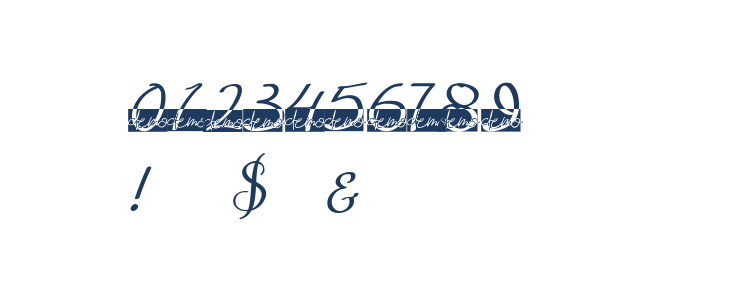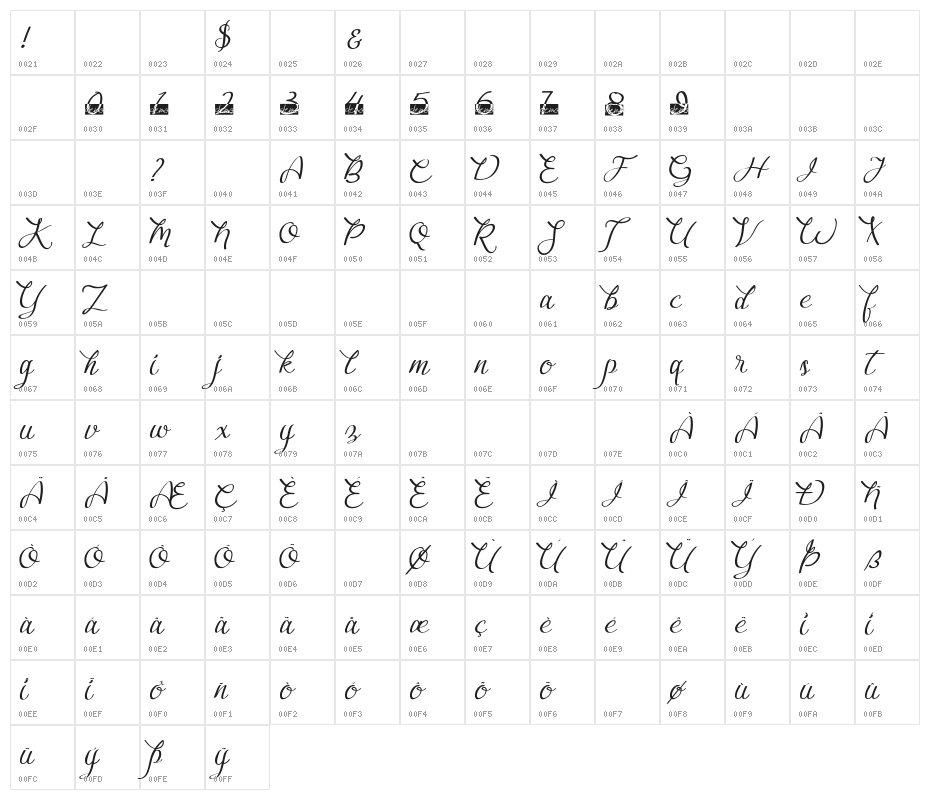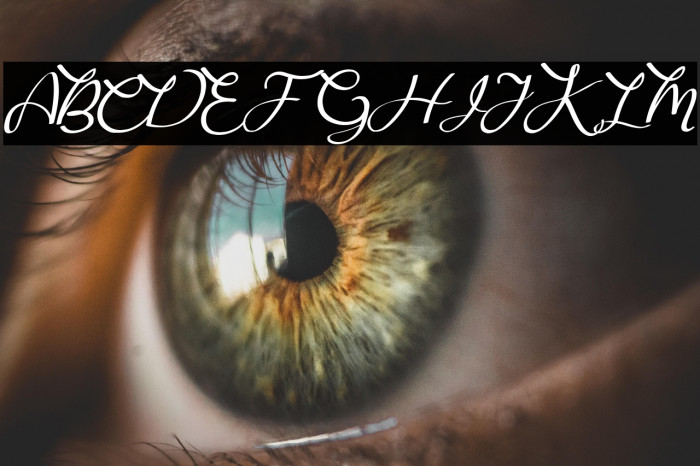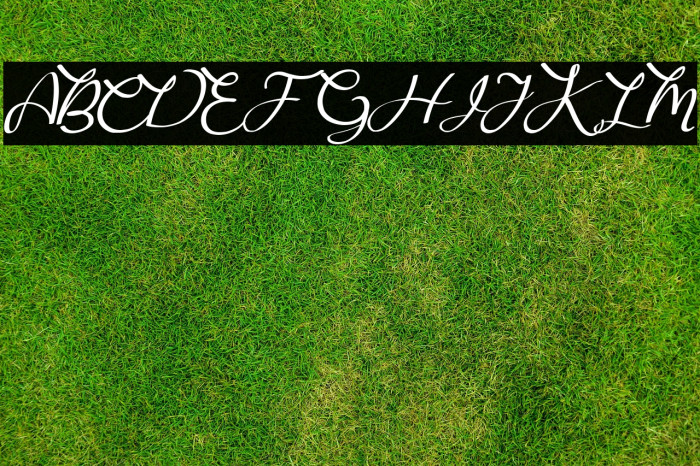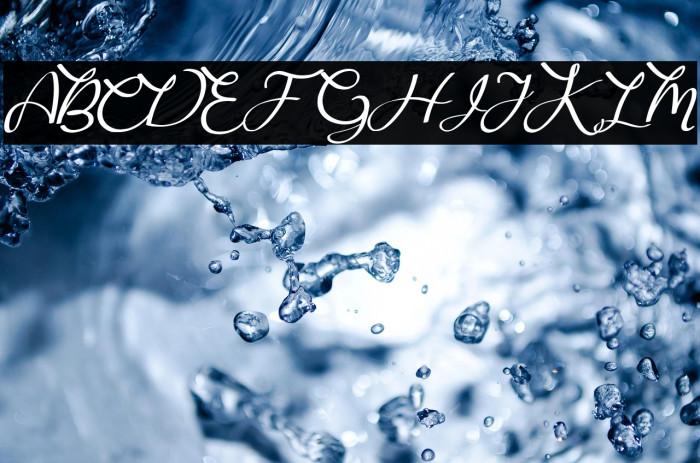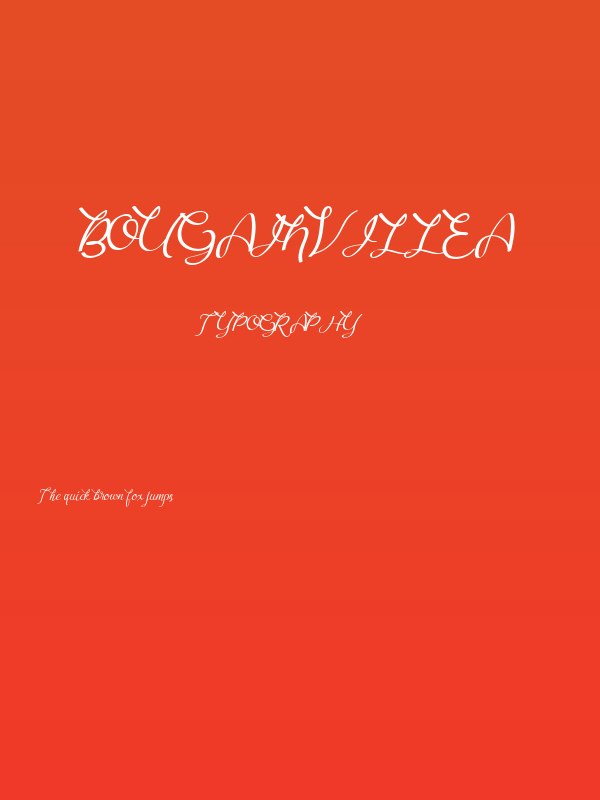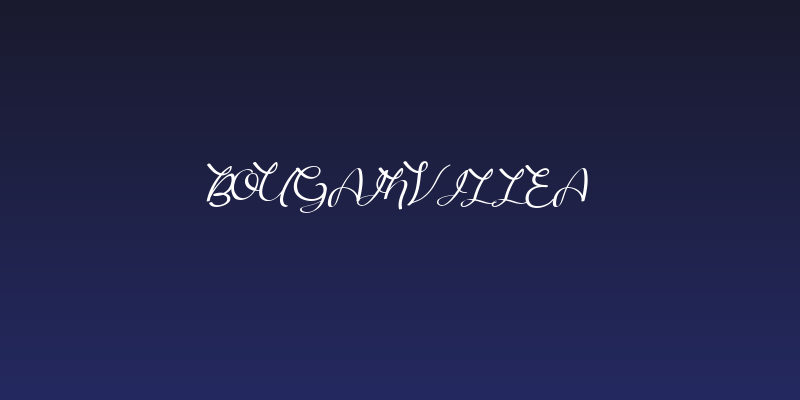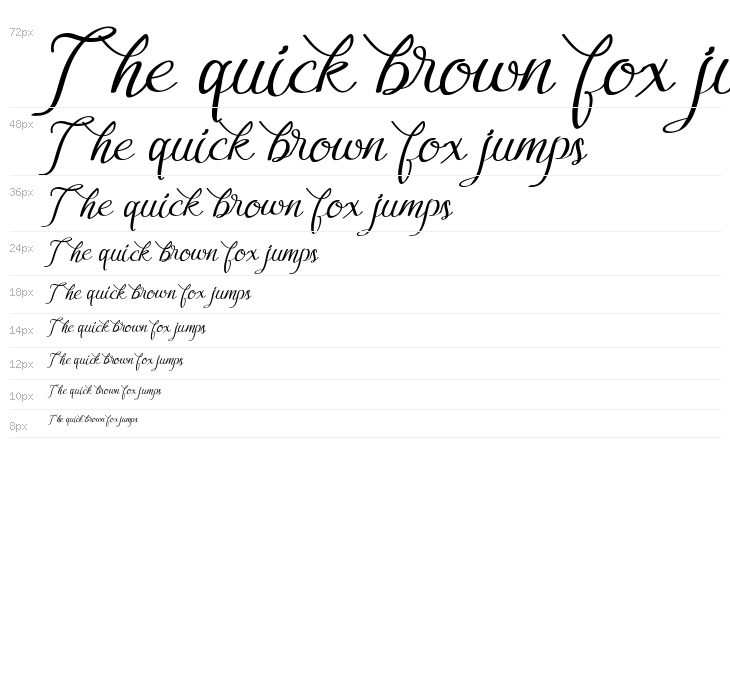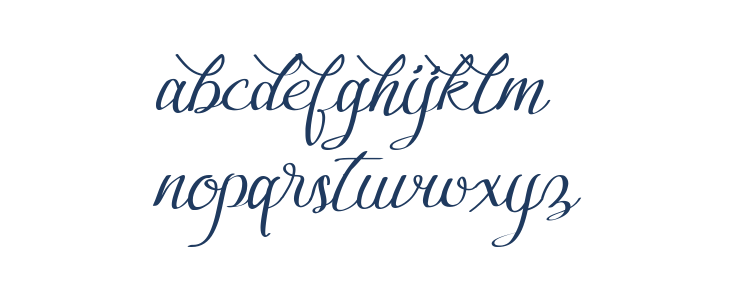
Bougainvillea Font
Bougainvillea Description
This elegant script font features a flowing, cursive style with a sophisticated flair. The letters are interconnected, creating a seamless and graceful appearance. The uppercase characters are adorned with subtle flourishes, while the lowercase letters maintain a consistent rhythm and flow. The numerals are designed to complement the overall aesthetic, offering a cohesive look. Special characters like the ampersand and exclamation mark are crafted with the same attention to detail, enhancing the font's versatility. This font exudes a sense of elegance and refinement, making it ideal for projects that require a touch of class and sophistication.
Overall StyleElegant